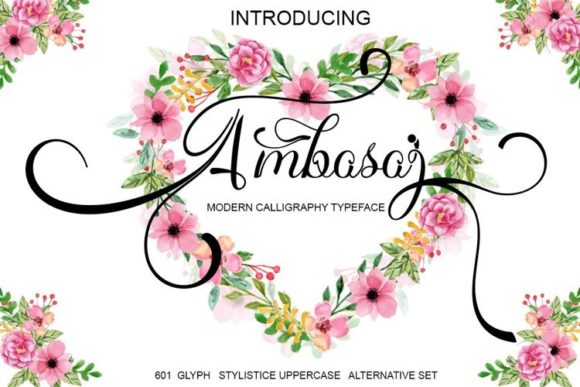
The Magic of Ambasaj Font: A Designer’s Delight
I’ll never forget the time I was working on a branding project for a new coffee shop. I had a clear vision of the vibe I wanted to create – warm, inviting, and playful – but I was struggling to find the perfect font to bring it all together. That’s when I stumbled upon Ambasaj, a lovely and timeless handwritten font that completely transformed my design. In this article, I’ll share my experience with Ambasaj, its unique features, and how you can make the most of it in your own design projects.
An Honest Review of Ambasaj Font
What I Love About Ambasaj ✨
- ✅ Unique and beautiful touch: Every letter in Ambasaj has a distinct character that adds a personal touch to your designs.
- ✅ Versatile: Ambasaj is perfect for creating eye-catching logos, branding materials, and quotes.
- ✅ Timeless: Despite being a handwritten font, Ambasaj has a classic feel that won’t go out of style anytime soon.
- ✅ Easy to read: The font is clear and legible, making it perfect for body text and headings.
While Ambasaj is an amazing font, there are a few things to keep in mind:
- ⚠️ Limited availability: Ambasaj might not be as widely available as other fonts, but it’s worth the search.
- ⚠️ May require manual kerning: As with any handwritten font, you might need to adjust the kerning to get the perfect spacing.
The Backstory of Ambasaj Font
Ambasaj was designed by a talented type designer who wanted to create a font that would evoke a sense of warmth and personality. The designer drew inspiration from classic handwritten fonts, but with a modern twist. The result is a font that’s both timeless and trendy.
Q: What type of designs is Ambasaj best suited for?
Ambasaj is perfect for creating eye-catching logos, branding materials, and quotes. Its unique touch and timeless feel make it a great choice for a wide range of design projects.
Q: Is Ambasaj a difficult font to read?
No, Ambasaj is a clear and legible font that’s easy to read, even at smaller sizes.